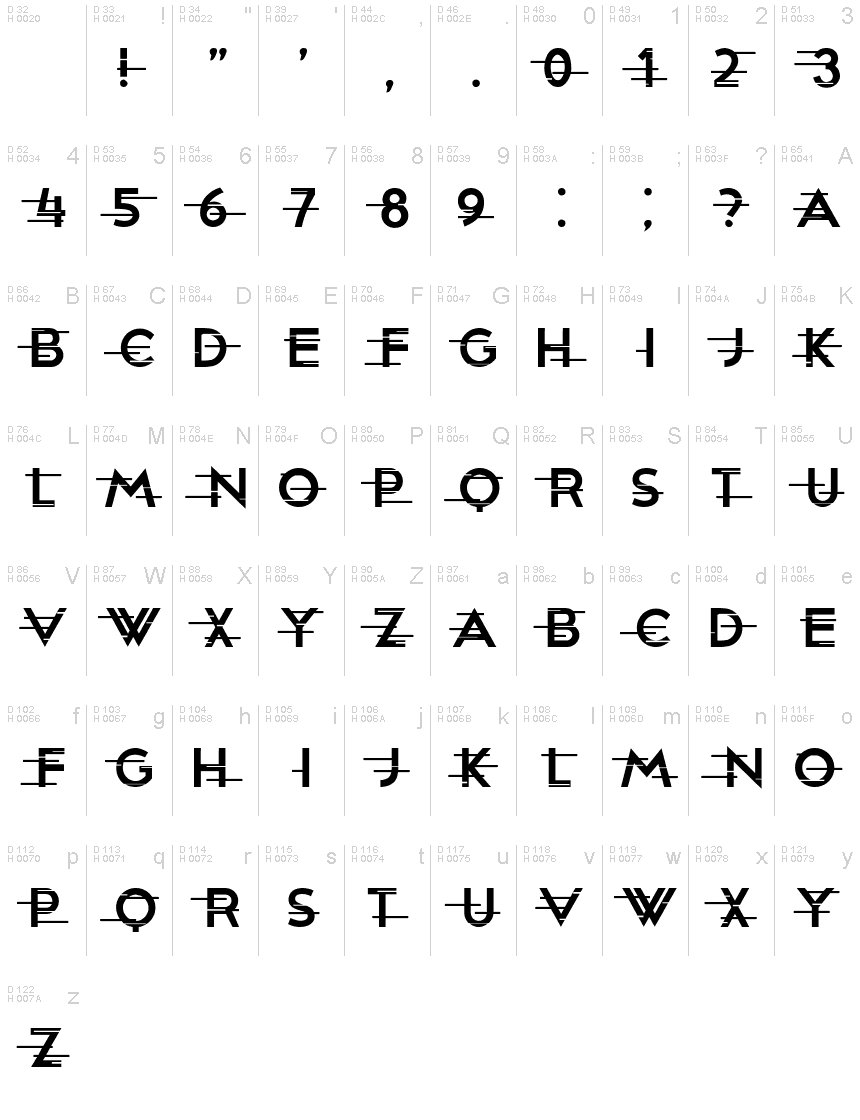
Plan De La Maison Regular
Plan De La Maison is a one-of-a-kind display font, designed by Vladimir Nikolic. Its distorted style makes it perfect for projects that need to stand out from the crowd. This modern and creative font will bring a unique and eye-catching touch to any project – from posters and flyers to magazines, billboards and beyond. With Plan De La Maison's bold look, you won't be able to go unnoticed!